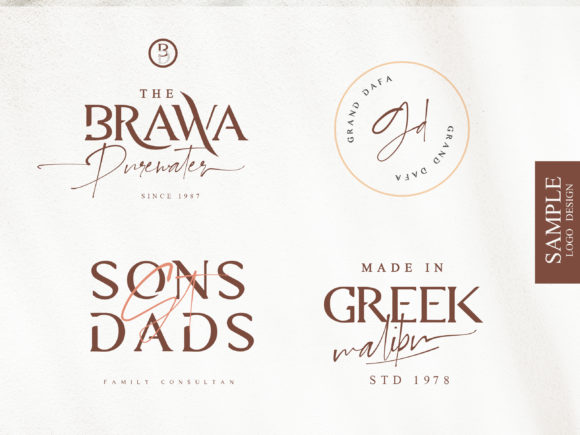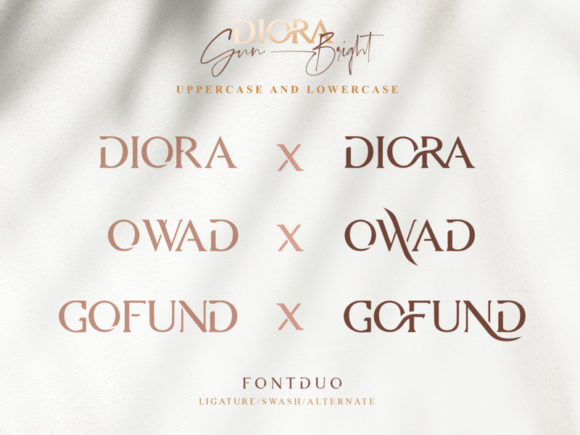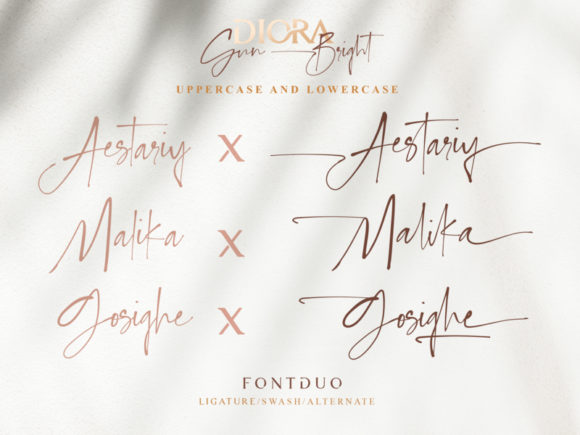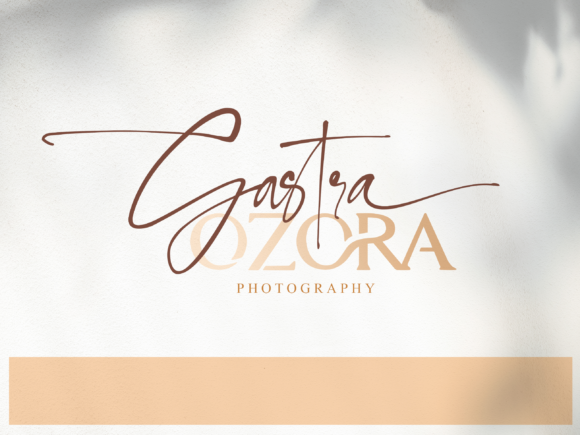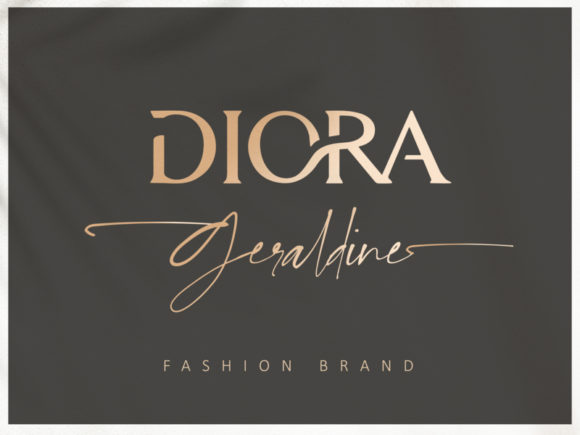
Diora Duo Font: Elevate Your Designs with Elegance and Sophistication
In the world of typography, font combinations can make or break a design. A perfect pairing can elevate your project from ordinary to extraordinary. Diora Duo Font is a game-changing duo that brings together a stunning script and a timeless serif font, designed to help you achieve remarkable results. In this article, we’ll dive into the world of Diora Duo Font, exploring its features, benefits, and the endless possibilities it offers for designers and crafters.
The Perfect Pairing: Script and Serif
Diora Duo Font combines two distinct yet complementary fonts: a beautiful script font and a classic serif font. The script font boasts elegant, flowing lines, perfect for adding a touch of sophistication to your designs. Meanwhile, the serif font provides a solid foundation, exuding timelessness and stability. This harmonious pairing allows you to create visually appealing contrasts, adding depth and interest to your projects.
Diora Script Font: Elegance and Fluidity
The Diora script font is a masterpiece of modern calligraphy. Its fluid strokes and intricate details evoke a sense of luxury and refinement. This font is ideal for headlines, titles, and short paragraphs, where you want to make a lasting impression. The Diora script font is perfect for:
- Magazine and editorial design
- Social media graphics and quotes
Diora Serif Font: Timelessness and Versatility
The Diora serif font is a classic, traditional typeface that exudes stability and reliability. Its clean lines, balanced proportions, and subtle nuances make it an excellent choice for body text, articles, and longer content. The Diora serif font is suitable for:
- Book and magazine publishing
- Blog and website design
- Marketing materials and brochures
- Reports and presentations
Benefits of Using Diora Duo Font
- Unique and Memorable Designs: The combination of script and serif fonts creates a distinctive look that sets your designs apart.
- Flexibility and Versatility: Use the script font for headlines and the serif font for body text, or mix and match to create interesting visual hierarchies.
- High-Quality Typography: Diora Duo Font is crafted with attention to detail, ensuring crisp, clear text that’s easy to read.
Tips for Using Diora Duo Font
To get the most out of Diora Duo Font, here are some expert tips:
- Experiment with Font Sizes and Weights: Play with different font sizes and weights to create visual interest and hierarchy.
- Mix and Match Font Styles: Combine the script and serif fonts in creative ways to add texture and depth to your designs.
- Pay Attention to Kerning and Tracking: Adjust the kerning and tracking to ensure optimal readability and aesthetics.